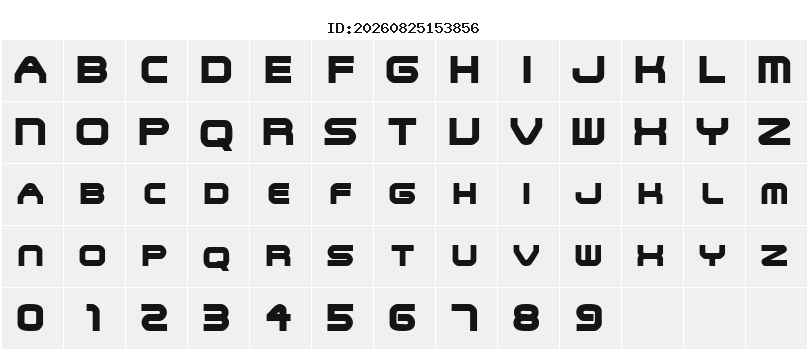
SNFU Preview
• Font Name: SNFU
• Font Style: Heavy
• Full Font Name: SNFU Heavy
About SNFU.ttf
SNFU.ttf is a modern, elegant sans-serif font designed for ultimate readability and visual harmony. Perfect for branding, headlines, web design, and print materials.